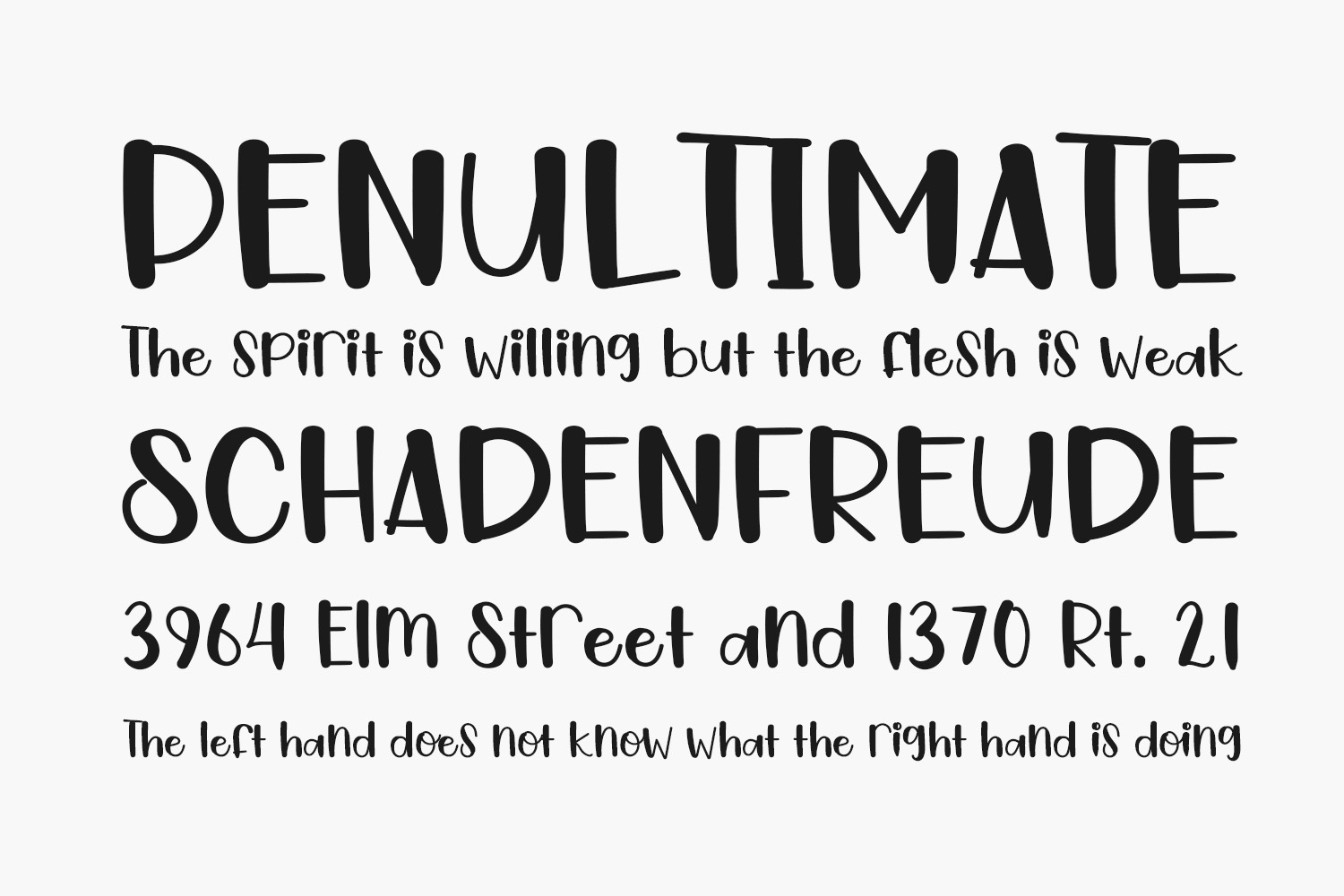
Santa in Christmas Free Font is a playful font that emanates confidence and versatility. Its stylish alternates make this font the perfect match for any project. Santa in Christmas Free Font was designed by Inermedia Studio and is free for personal use only. Please purchase the full version for commercial use.
Designed by Inermedia Studio